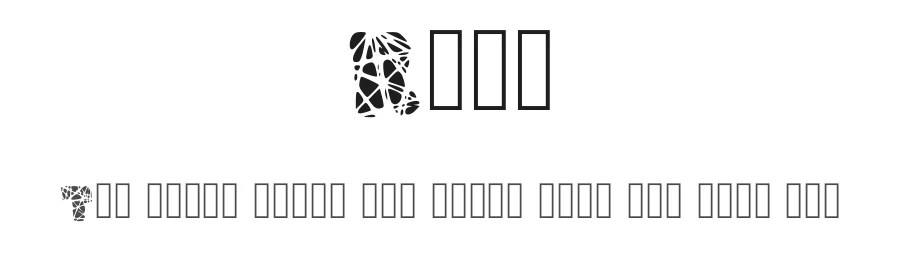
About Brightoon Font
Brightoon is a decorative font designed by imagex. It includes 53 glyphs, a regular weight, and TTF (TrueType) format. Brightoon is free to download; check the license details on this page before commercial use. Decorative fonts like Brightoon work best for logos, posters, packaging, and standout headlines.
Brightoon Font is a decorative font that shines as a display or heading face. Pair it with a clean sans-serif or serif font for body text β the contrast creates a clear hierarchy while the two styles stay balanced and easy to read.